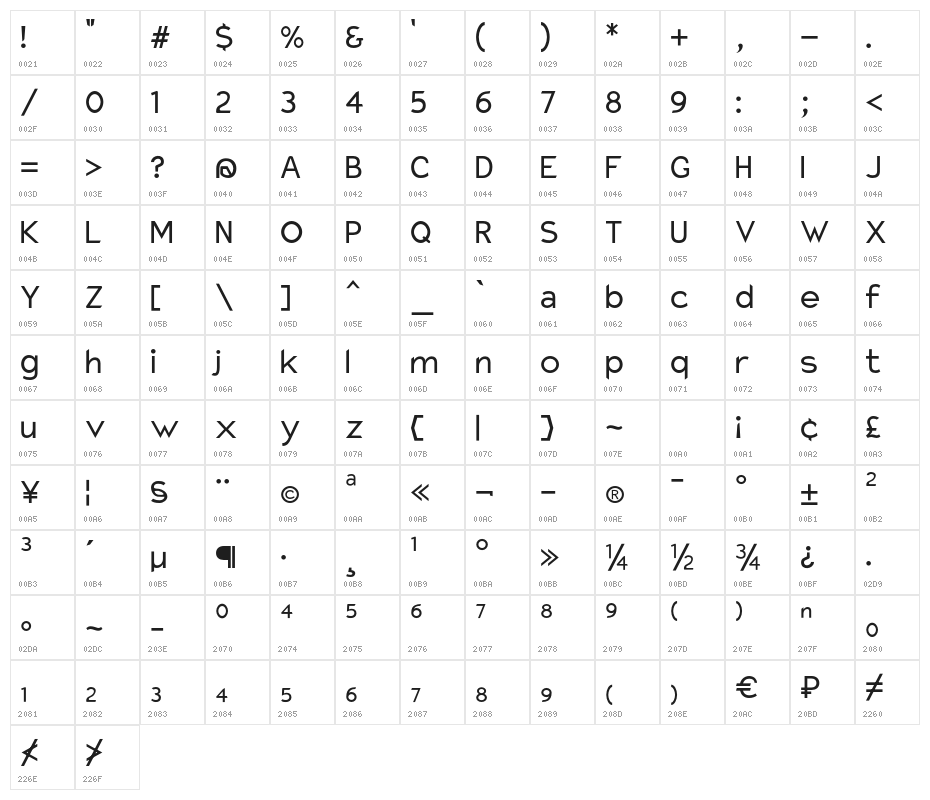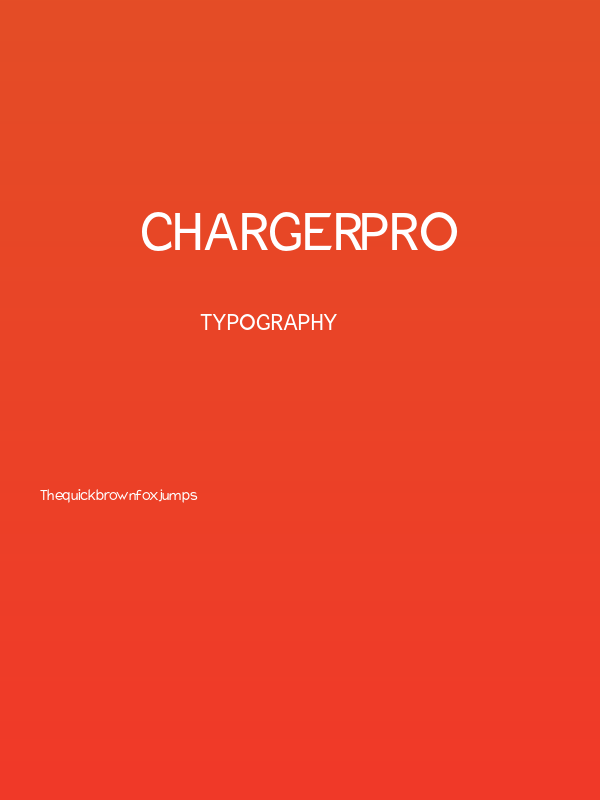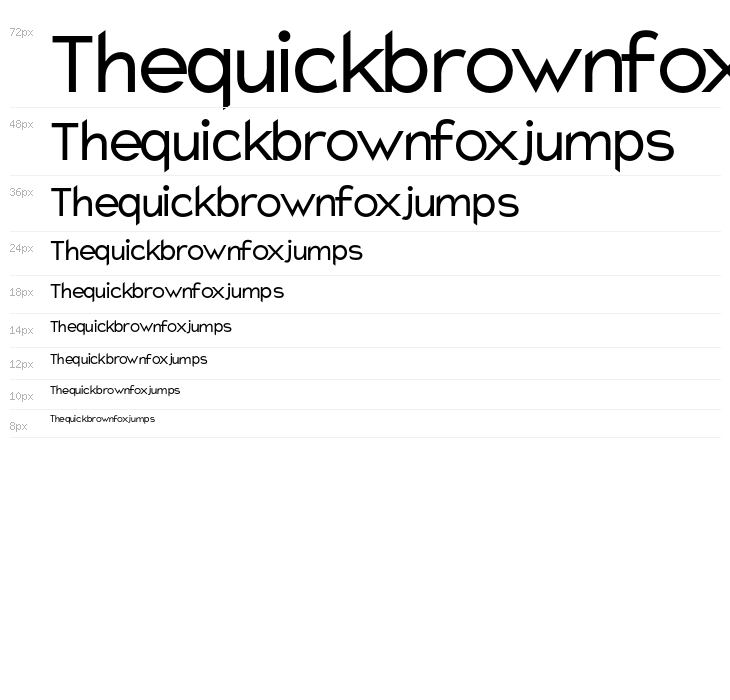
Charger Pro Font
Charger Pro Description
This font features a clean and modern sans-serif design, characterized by its geometric shapes and balanced proportions. The uppercase letters are bold and assertive, while the lowercase letters maintain a consistent and harmonious flow. The numerals are clear and easily distinguishable, making them suitable for various applications. Special characters are well-integrated, maintaining the overall aesthetic of the font. The design is versatile, offering a professional appearance that can be adapted to a wide range of uses.